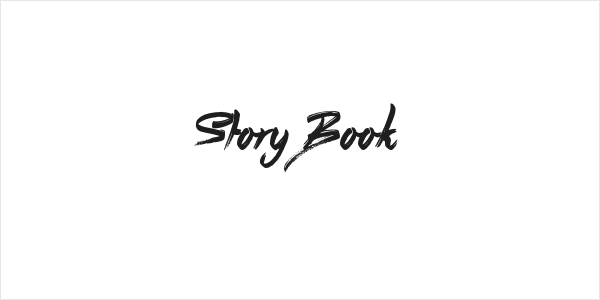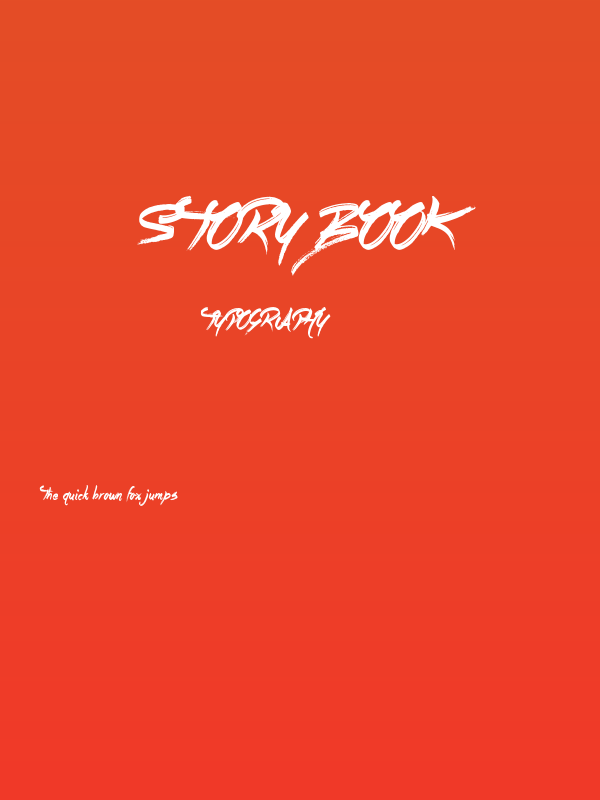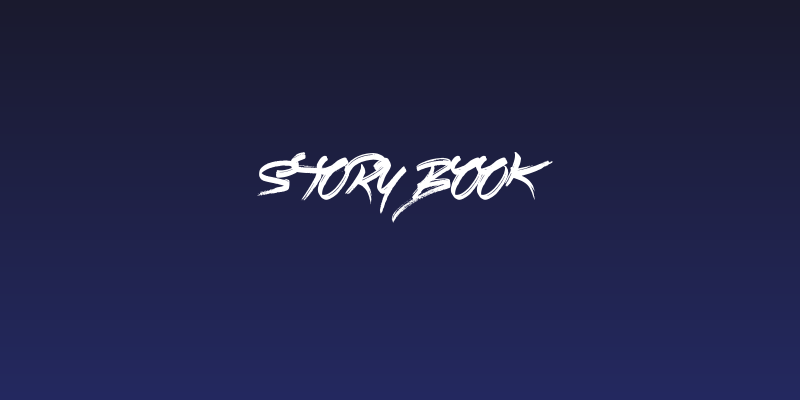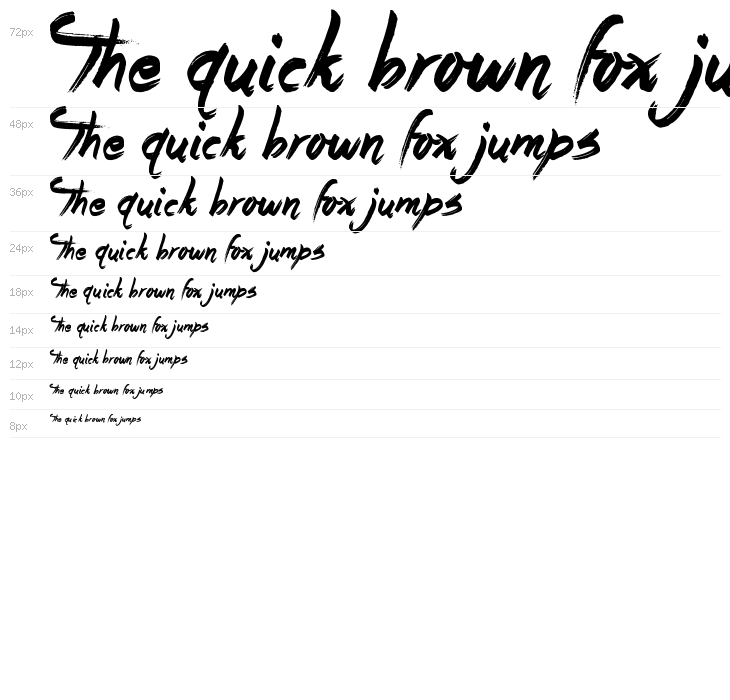
Story Book Font
Story Book Description
This font features a bold, expressive style with a hand-painted appearance. The strokes are dynamic and energetic, with a brush-like texture that adds a sense of movement and flair. The characters are slightly slanted, giving them a forward momentum. The uppercase and lowercase letters maintain a consistent style, with the uppercase being more pronounced and the lowercase offering a more fluid connection. Numbers and special characters are integrated seamlessly, maintaining the overall aesthetic. This font is ideal for projects that require a strong, artistic touch.
| Use Case | Logos, Posters, Artistic designs |
| Proposed Projects | Ideal for artistic projects, branding, posters, and any design requiring a bold, creative touch. |